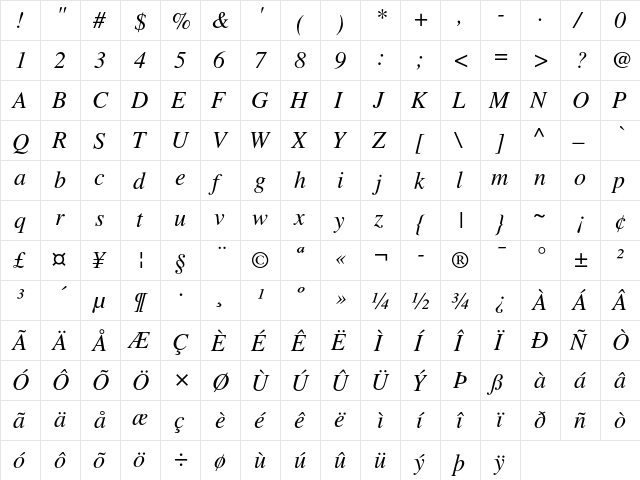
Tempora LGC Uni Italic
Design Context for Tempora LGC Uni Typeface
Tempora LGC Uni is a composed and adaptable typeface that performs quietly and consistently across a wide range of design contexts. The slanted form adds forward momentum and visual energy.
Pro Tip: Try Tempora LGC Uni for annotation and caption copy alongside an upright companion — the contrast in angle creates a dynamic but ordered typographic system.